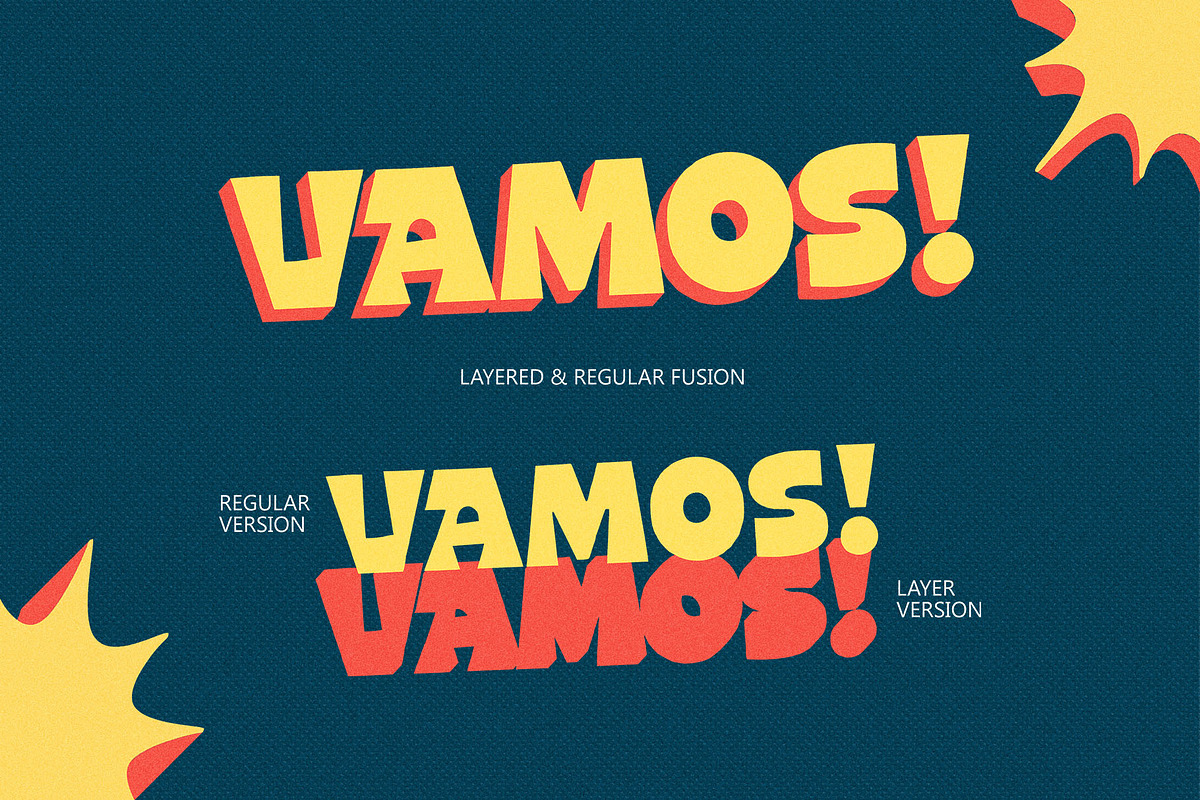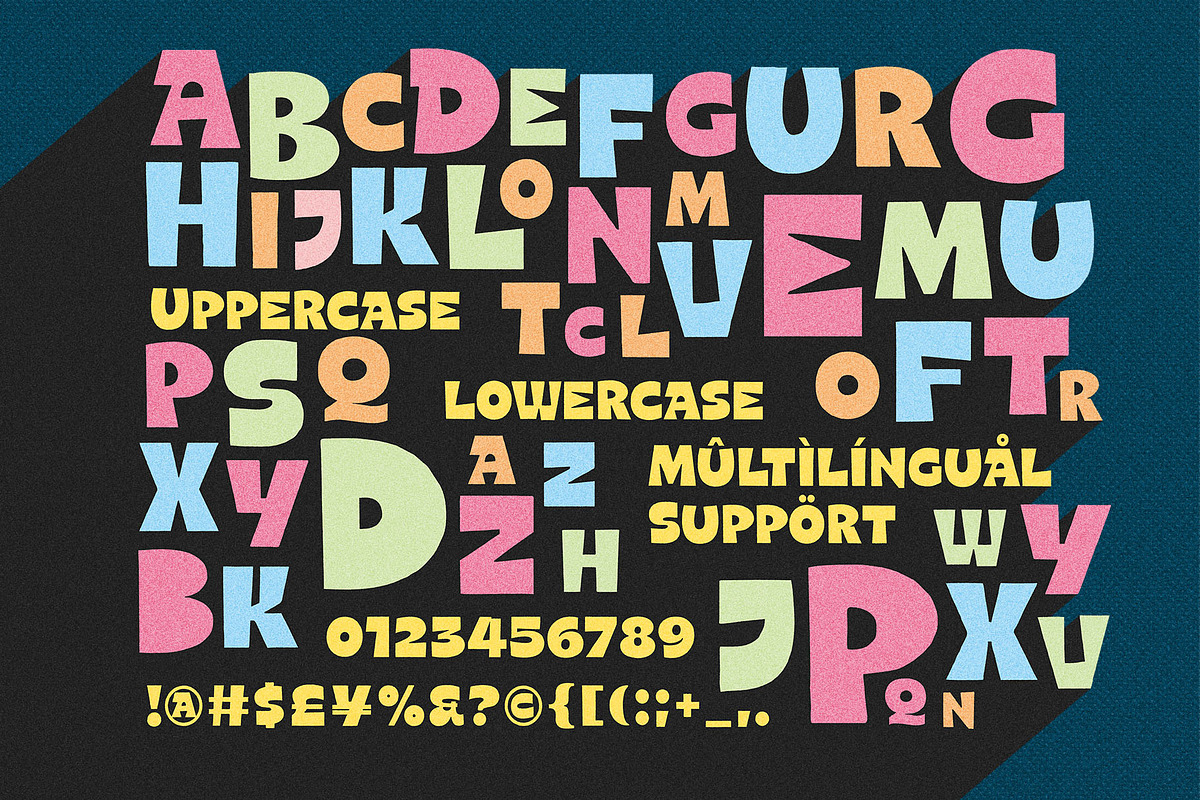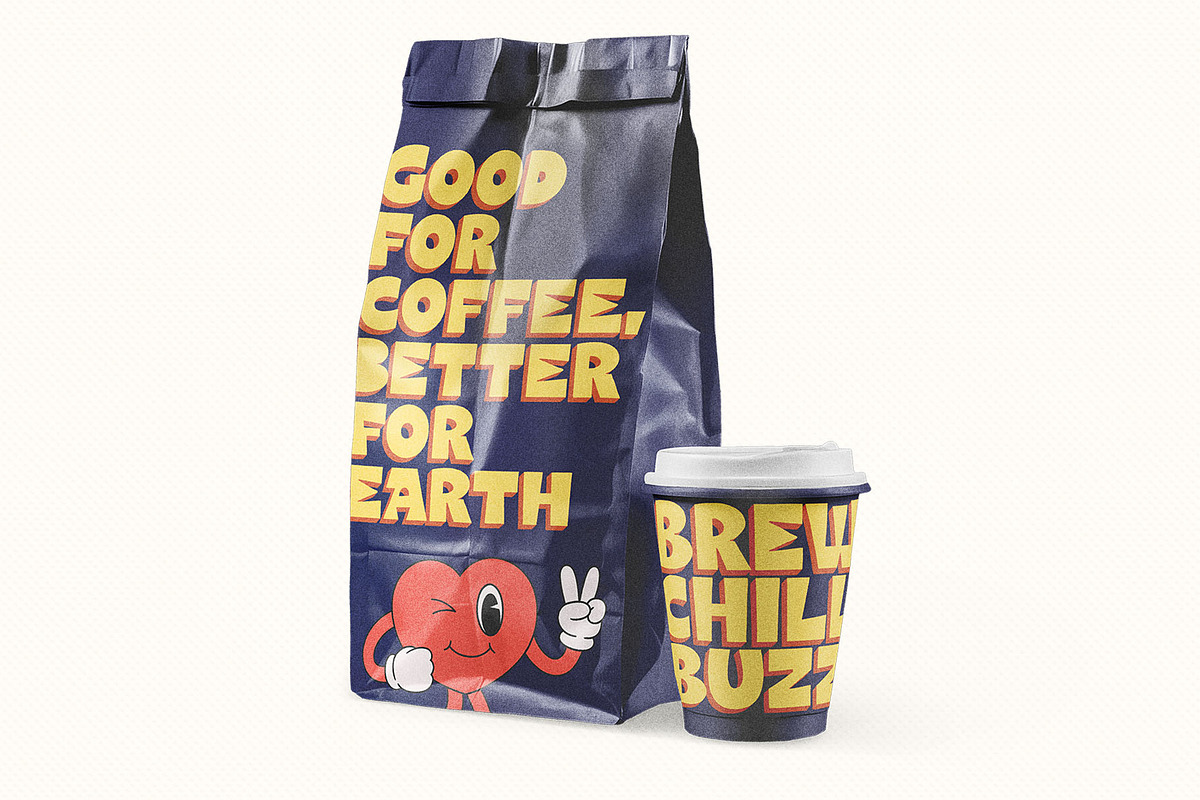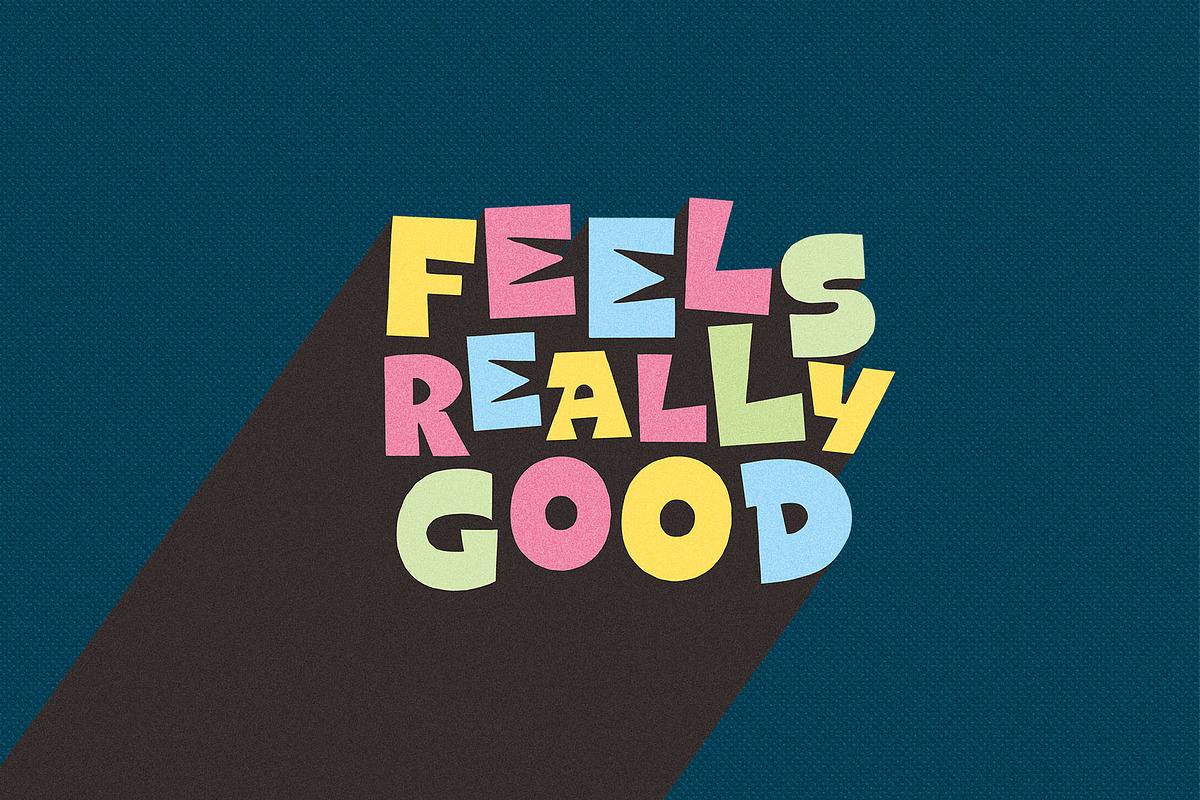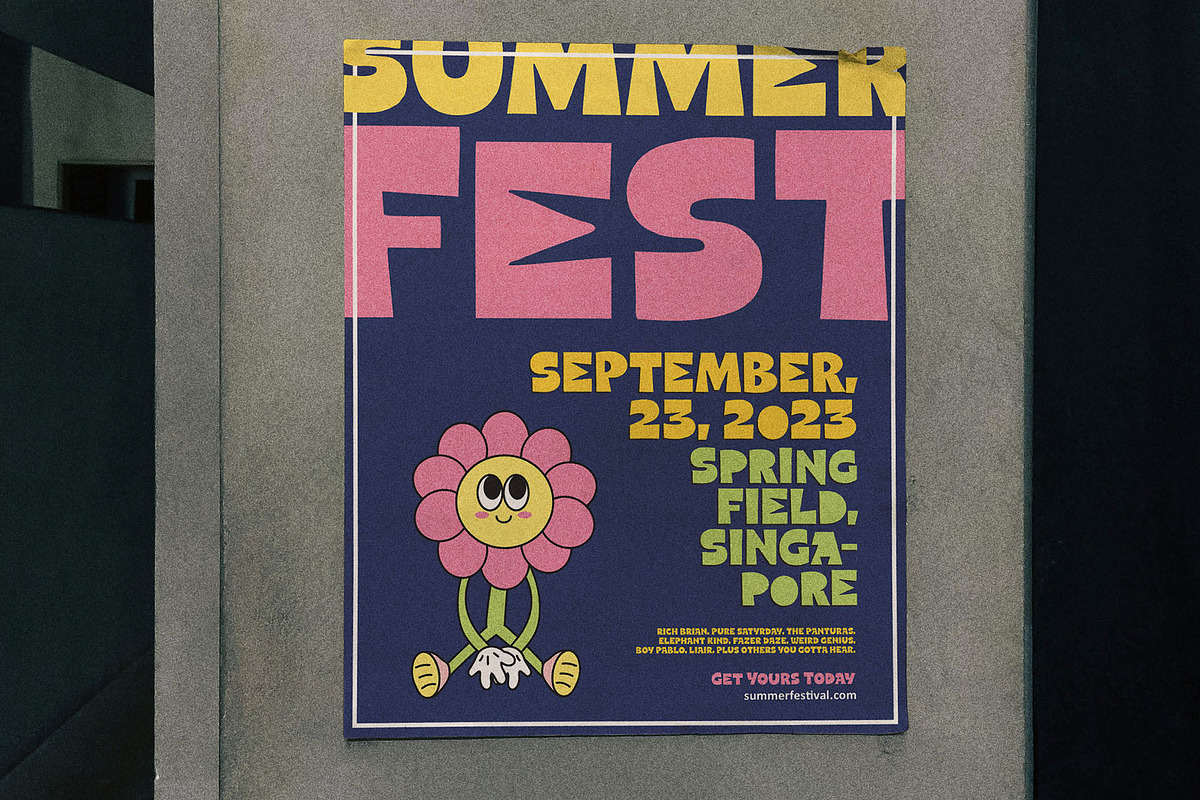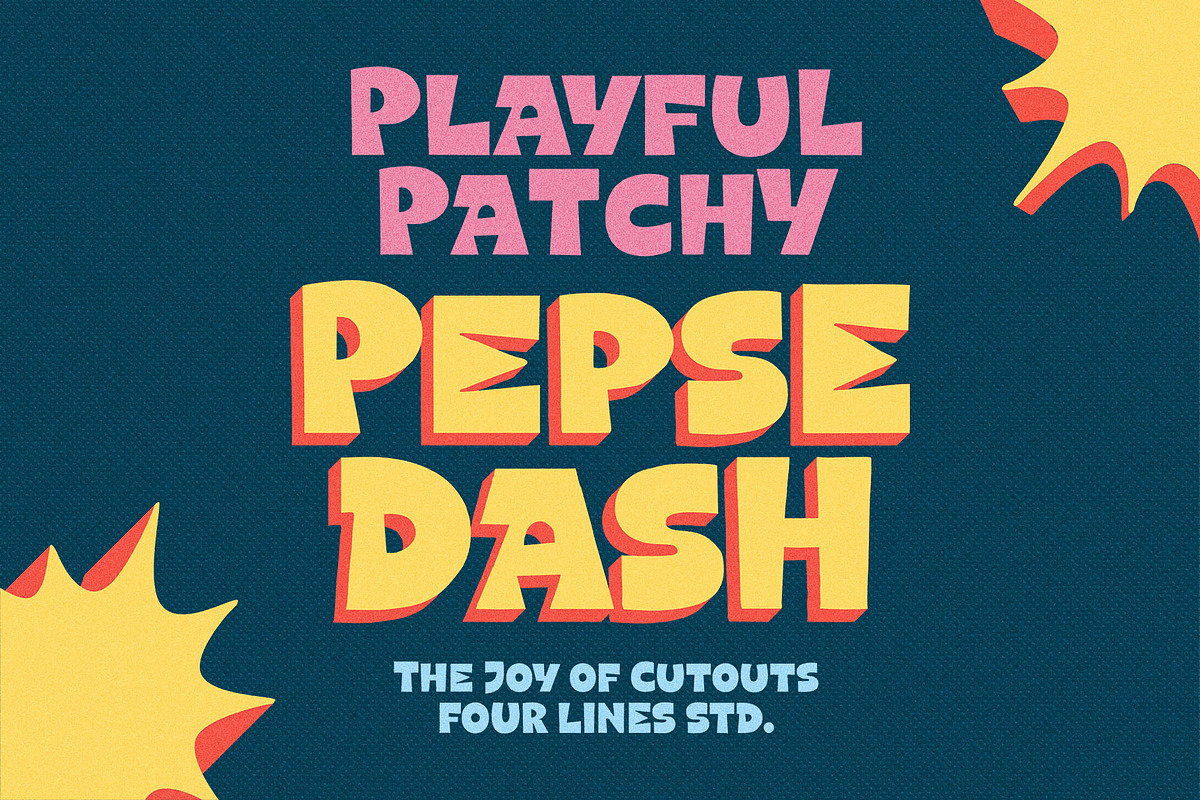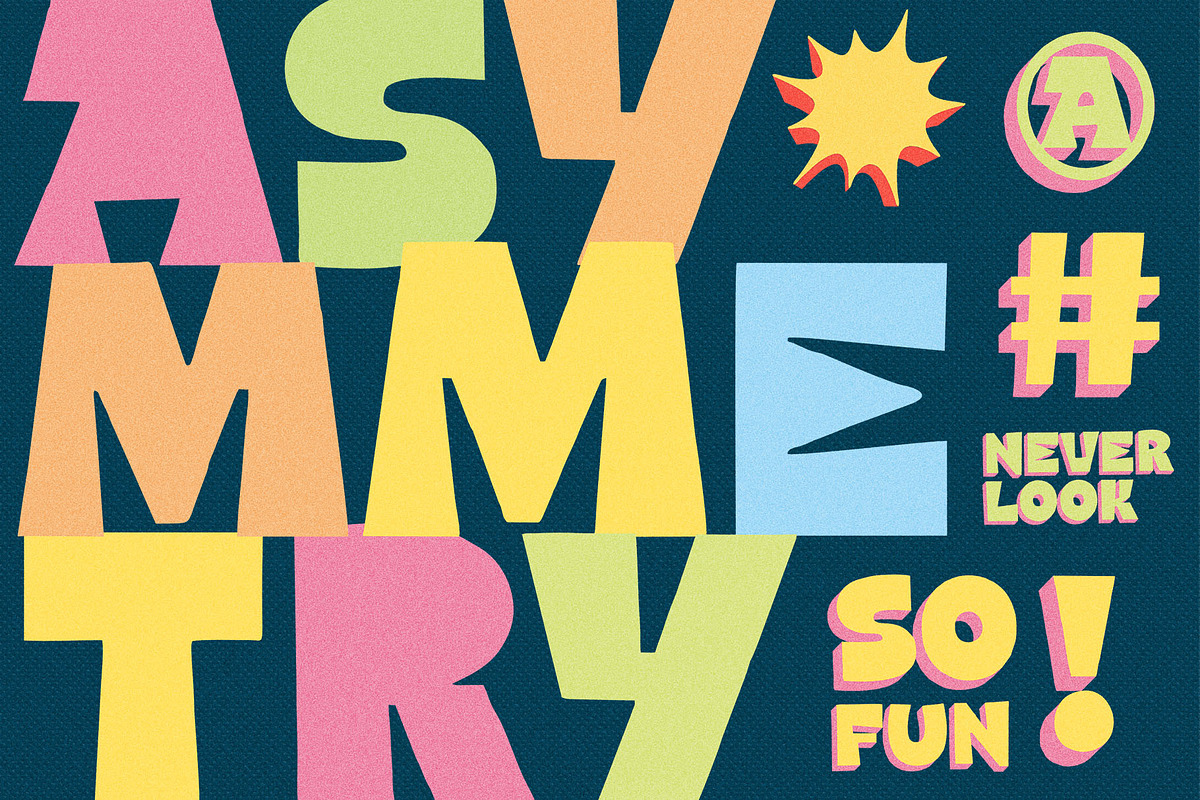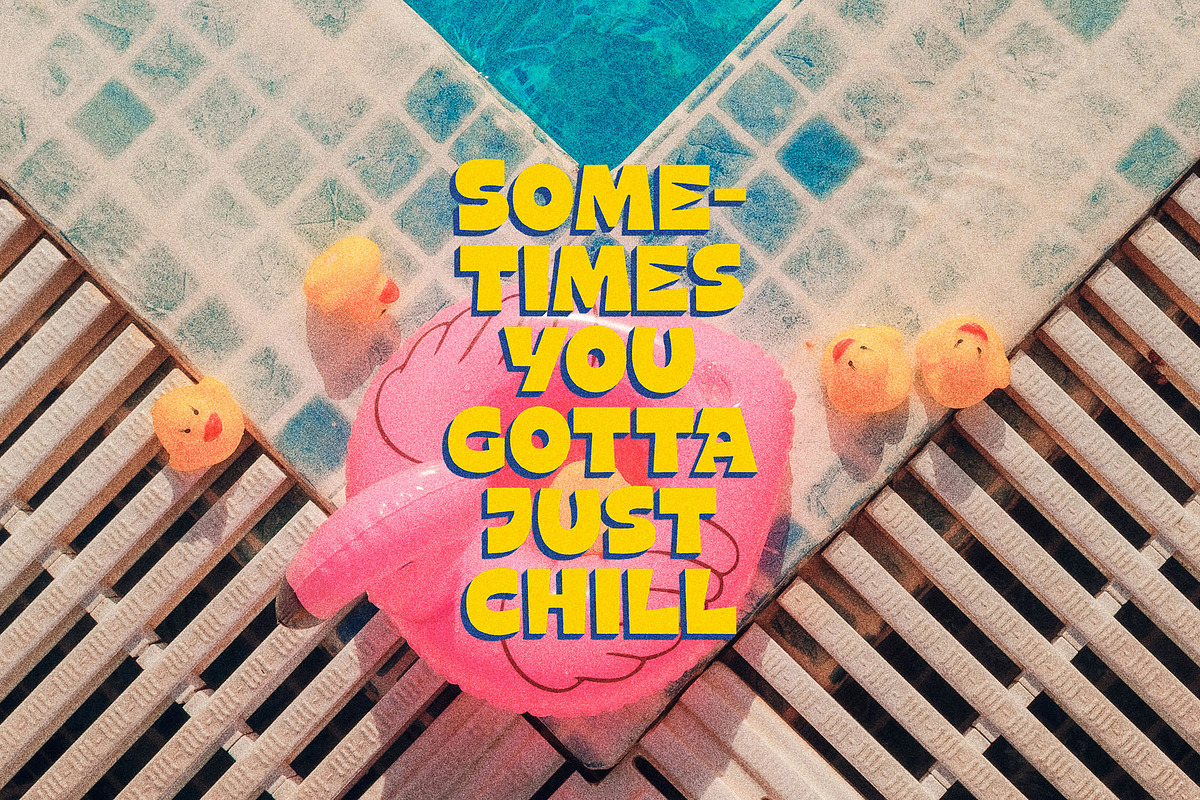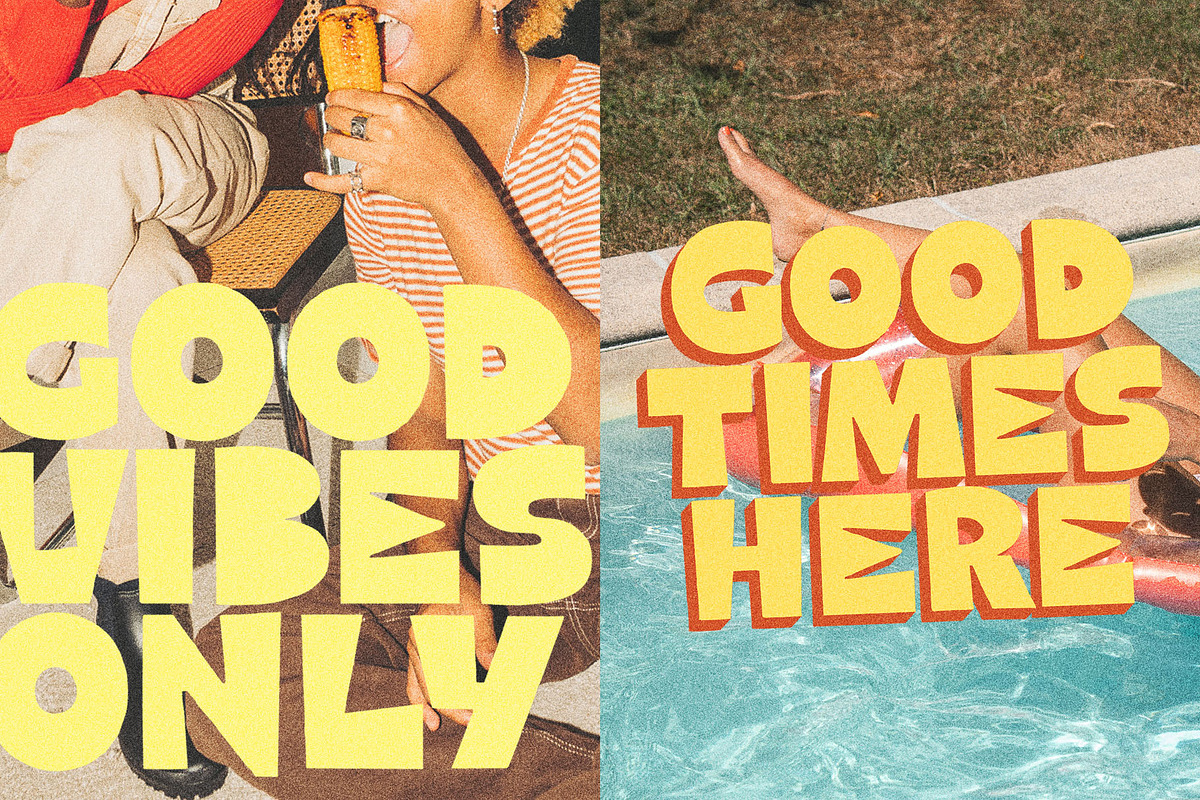
Pepse Dash – The Joy of Cutouts
Pepse Dash is a bold, cheerful cutout-style display font inspired by the playful charm of paper shapes. It comes in two styles: Regular and Layer — perfect to use separately or together for vibrant, layered typography that bursts with energy. Ideal for posters, packaging, book covers, social media graphics, and more, Pepse Dash features irregular edges and dynamic forms that give every word a lively, handmade feel. From retro party flyers to colorful kids’ brands and bold headlines, it adds personality and playfulness to any project.